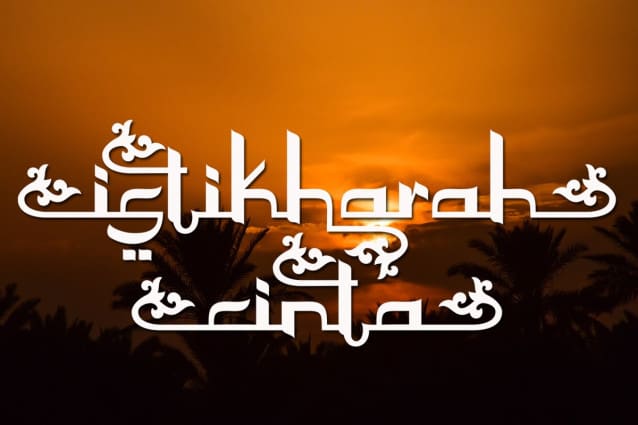
Asbatun Arabic Font
Asbatun Arabic Font, is a bold calligraphy font, featuring Arabic Style with Alternates and Ligatures. Designed expertly to make your project or work more modern, this font can be used for various projects such as: greeting cards, branding, logos, screen printing, and many others.